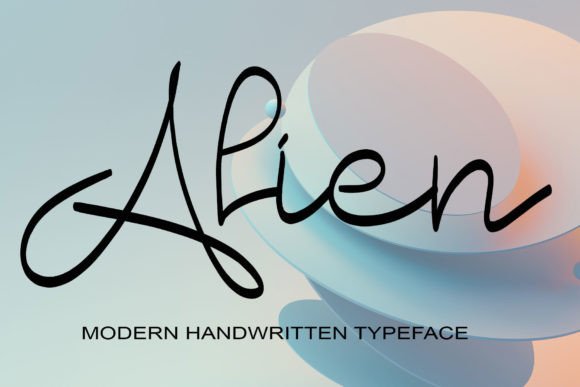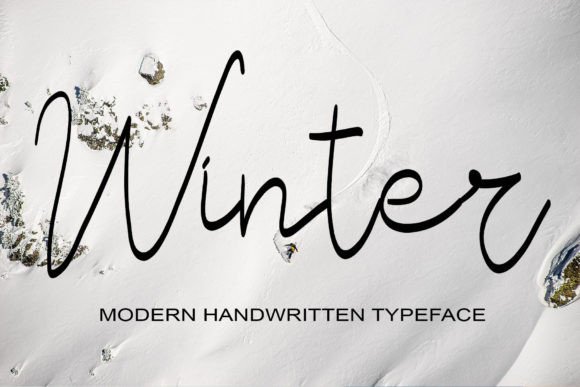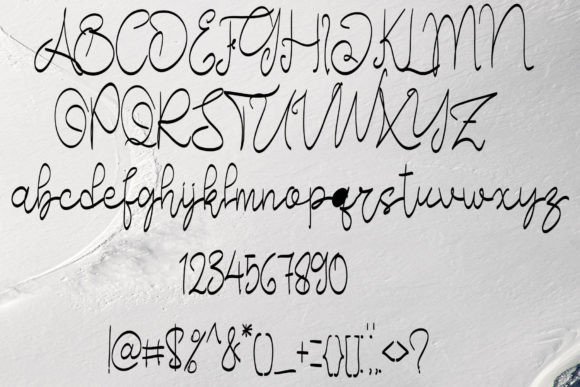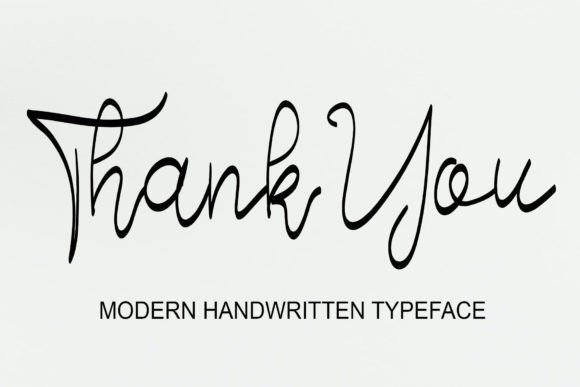
Introducing Bigges Font: Elevate Your Designs with Elegance and Sophistication
In the world of typography, a font can make or break the aesthetic of a design. For those seeking a touch of elegance and sophistication, Bigges Font is an exceptional choice. This stylish and incredibly elegant script font is perfect for adding a handwritten touch to various designs, making it a versatile asset for designers and crafters alike.
The Characteristics of Bigges Font
Bigges Font stands out with its beautiful, flowing script style that exudes luxury and refinement. Its elegant strokes and precise craftsmanship make it suitable for a wide range of applications, from formal events to branding and marketing materials. The font’s unique charm lies in its ability to add a personal, human touch to digital and print designs, making it instantly more engaging and memorable.
Ideal Uses for Bigges Font
Bigges Font’s versatility is one of its most appealing qualities. Here are some of the ideal uses for this stunning script font:
- Wedding Invitations: Add a touch of romance and sophistication to your wedding invitations, save-the-date cards, and other wedding-related stationery.
- Thank You Cards: Express your gratitude in style with beautifully designed thank you cards that make a lasting impression.
- Quotes and Typography: Use Bigges Font to create stunning quote graphics that can be shared on social media or used in blogs and websites.
- Greeting Cards: From birthday and Christmas cards to more personalized greetings, Bigges Font adds a touch of elegance to any occasion.
- Logos and Branding: Elevate your brand’s visual identity with a sophisticated logo that incorporates the unique charm of Bigges Font.
- Business Cards: Stand out in the business world with professional, stylish business cards that reflect your brand’s personality.
Why Choose Bigges Font?
With so many fonts available, why should Bigges Font be your go-to choice? Here are a few compelling reasons:
- Elegance: Bigges Font brings an unparalleled level of elegance to any design, making it perfect for projects that require a sophisticated look.
- Versatility: Its wide range of applications makes Bigges Font a valuable addition to any designer’s toolkit.
- Readability: Despite its elegant and cursive nature, Bigges Font maintains excellent readability, ensuring your message is conveyed clearly.
- Uniqueness: Bigges Font offers a unique style that can help your designs stand out in a crowded digital landscape.
Tips for Using Bigges Font Effectively
To get the most out of Bigges Font, consider the following tips:
- Pair with Complementary Fonts: Combine Bigges Font with simpler fonts to create visual interest and hierarchy in your designs.
- Adjust Size and Color: Experiment with different sizes and colors to emphasize certain parts of your text and create a focal point.
- Use for Headings and Titles: Bigges Font shines in headings and titles, so use it to draw attention and add personality to your designs.
Bigges Font is more than just a script font; it’s a design element that can transform your projects with its elegance and sophistication. Whether you’re a designer looking to elevate your client’s branding or a crafter seeking to add a personal touch to your creations, Bigges Font is an excellent choice. Its versatility, readability, and unique charm make it a valuable asset in the world of design. So, why settle for ordinary when you can create something extraordinary with Bigges Font?